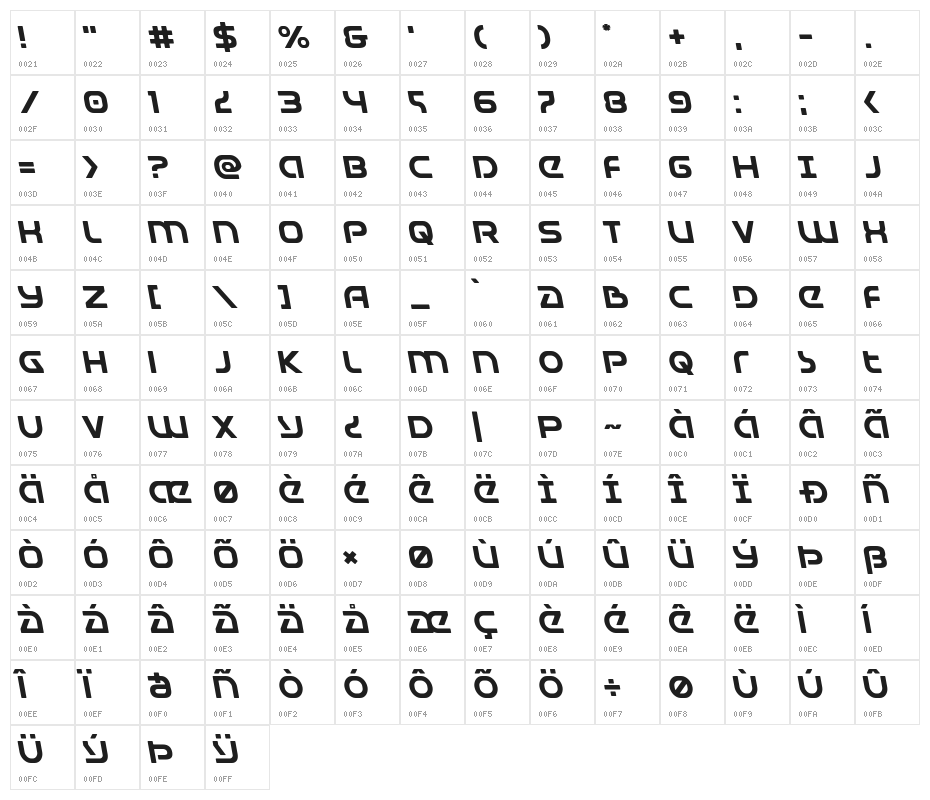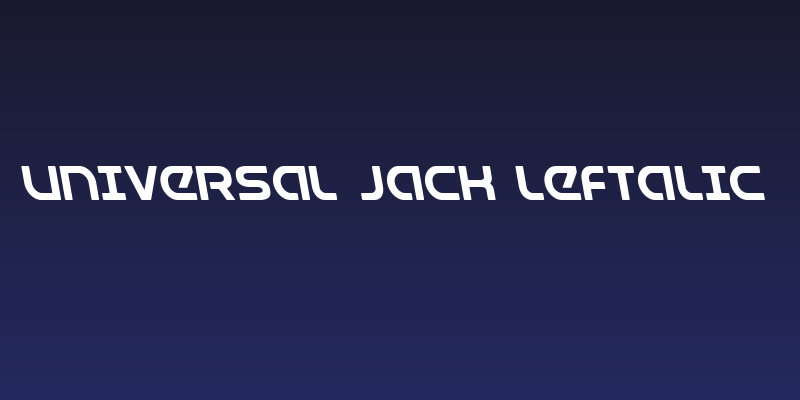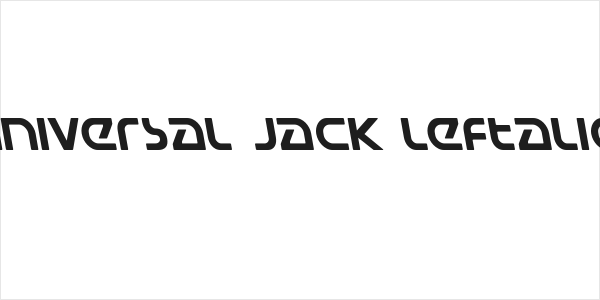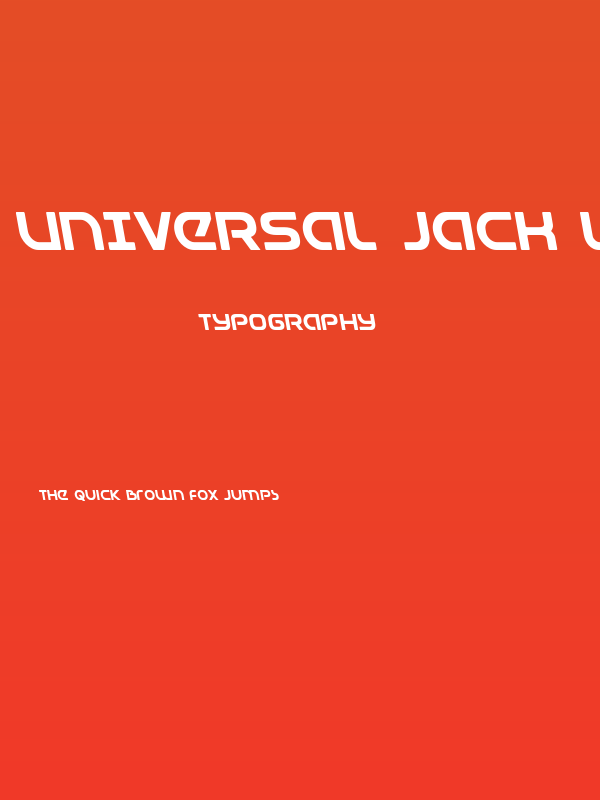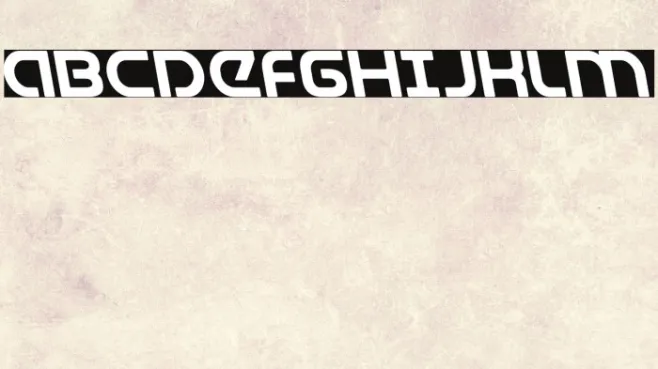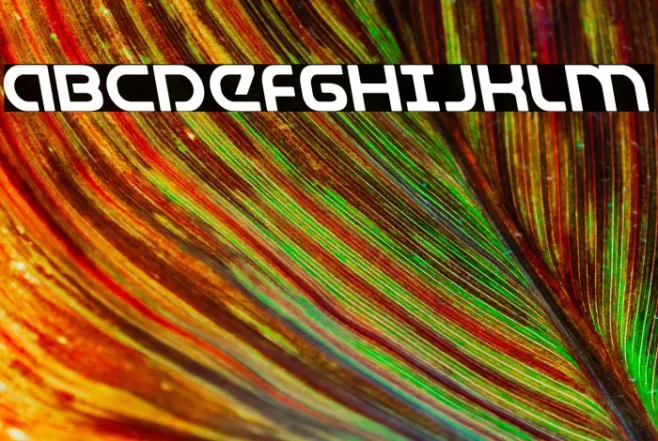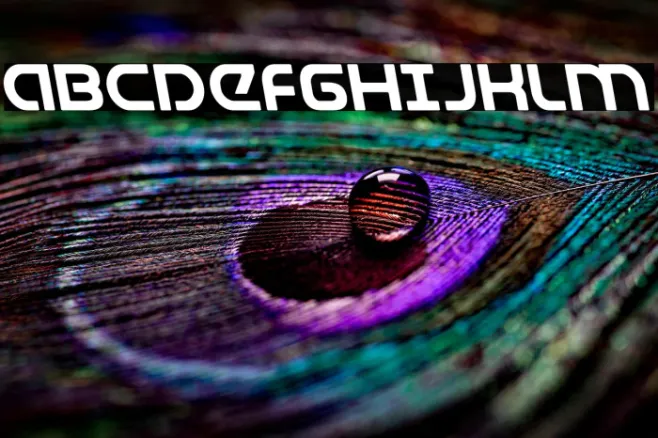
Universal Jack Leftalic Font
Universal Jack Leftalic Description
This font features a bold and futuristic design with a distinct geometric style. The characters are crafted with sharp angles and a consistent stroke width, giving them a modern and technical appearance. The uppercase and lowercase letters maintain a uniform look, with unique cuts and slants that add a dynamic feel. The numbers and special characters follow the same design principles, ensuring a cohesive and visually striking set. This font's boldness and angularity make it stand out, suitable for projects that require a modern and edgy aesthetic.
| Proposed Projects | Ideal for technology branding, sci-fi posters, video game titles, and modern logos. |